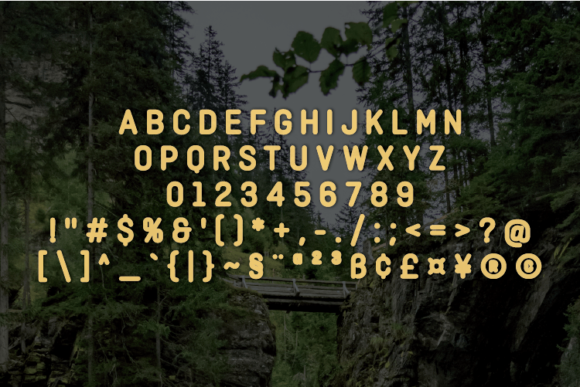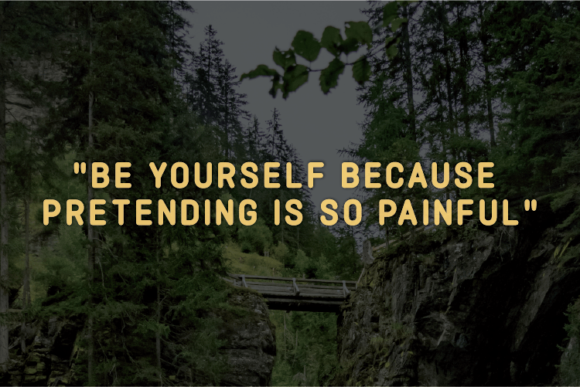
Introducing Enrinco Font: The Ultimate Sans Serif for Creative Projects
Are you a designer or crafter looking for a bold and authentic font to elevate your creative projects? Look no further than Enrinco Font, a stunning sans serif font designed to complement every project you wish to create. With its sleek and modern aesthetic, Enrinco is perfect for a wide range of applications, from displays and headers to invitations, save the dates, weddings, and more.
What Makes Enrinco Font So Special?
Enrinco Font is a carefully crafted sans serif font that boasts a unique blend of boldness and elegance. Its clean lines, precise curves, and exceptional legibility make it an ideal choice for designers and crafters seeking a font that can add a touch of sophistication to their work. Whether you’re creating a stunning display, a beautiful invitation, or a memorable wedding announcement, Enrinco Font is sure to impress.
Key Features of Enrinco Font
- Bold and Authentic: Enrinco Font is designed to make a statement with its bold and authentic style, perfect for grabbing attention and conveying confidence.
- Sans Serif Elegance: The font’s sleek and modern sans serif design ensures that your text looks clean, crisp, and highly legible.
- Versatile: Enrinco Font is incredibly versatile and can be used for a wide range of projects, including displays, headers, invitations, save the dates, weddings, and more.
- Exceptional Legibility: The font’s precise curves and clean lines ensure that your text is easy to read, even at smaller sizes.
Enrinco Font is an excellent choice for designers and crafters who want to add a professional touch to their work. Whether you’re creating digital content, print materials, or handmade crafts, this font is sure to elevate your designs and make them stand out. With Enrinco Font, you can:
- Create stunning displays and headers that grab attention.
- Design beautiful invitations and save the dates that set the tone for special occasions.
- Develop eye-catching wedding announcements and signage that leave a lasting impression.
- Enhance your digital content with a bold and modern font that complements your brand.
Tips for Using Enrinco Font
To get the most out of Enrinco Font, here are a few tips to keep in mind:
- Experiment with Sizes: Enrinco Font looks great at a variety of sizes, so don’t be afraid to experiment and find the perfect size for your project.
- Play with Colors: The font’s bold and authentic style pairs well with a wide range of colors, so try out different combinations to find the one that works best for your design.
- Mix and Match: Enrinco Font can be paired with other fonts to create a unique and visually appealing combination.